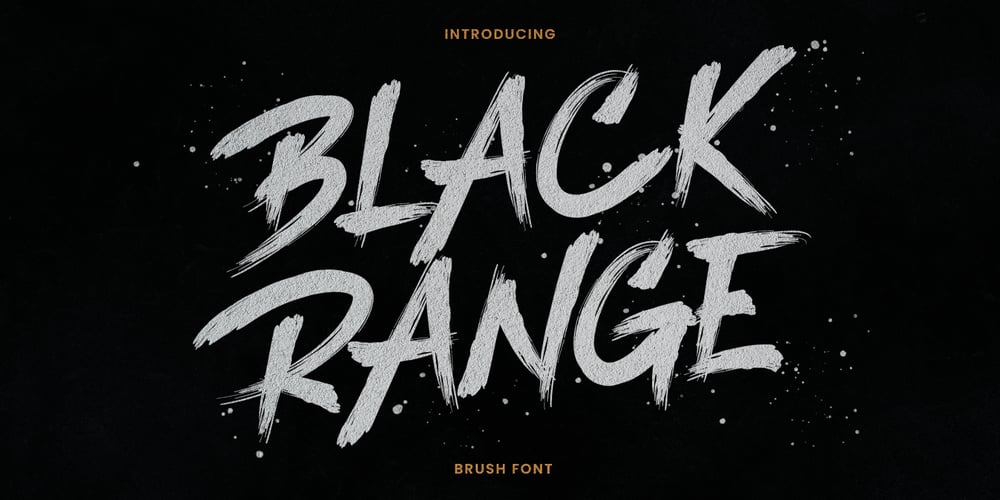
Black Range Font Family was designed by Gilang Maulana and published by Maulana Creative. Black Range contains 1 styles and family package options. Give your designs an authentic brush handcrafted feel. �Black Range Brush Font� is perfectly suited to stationery, logos and much more.Caps only fonts.Many Thanks!MaulanaCreative